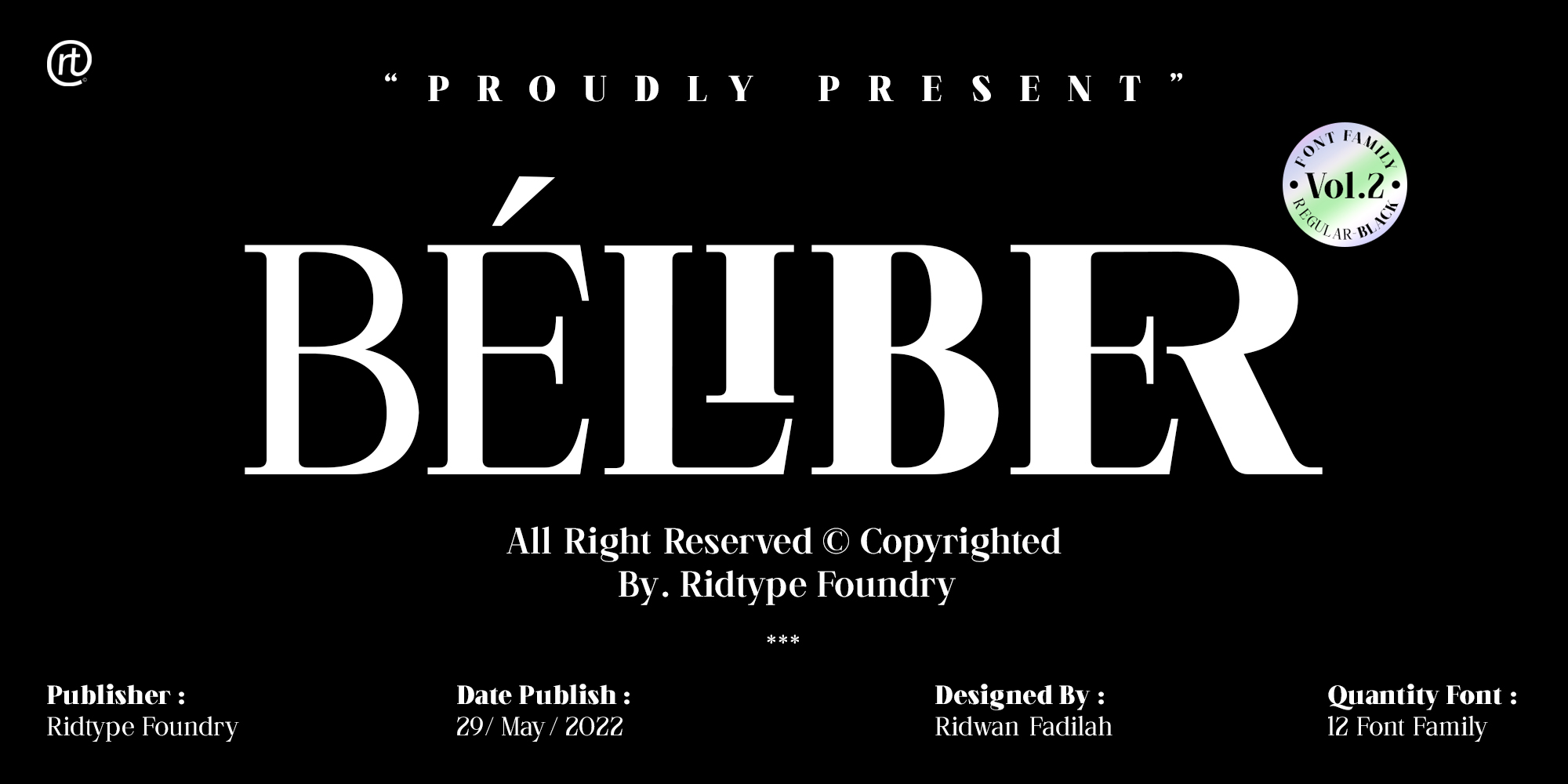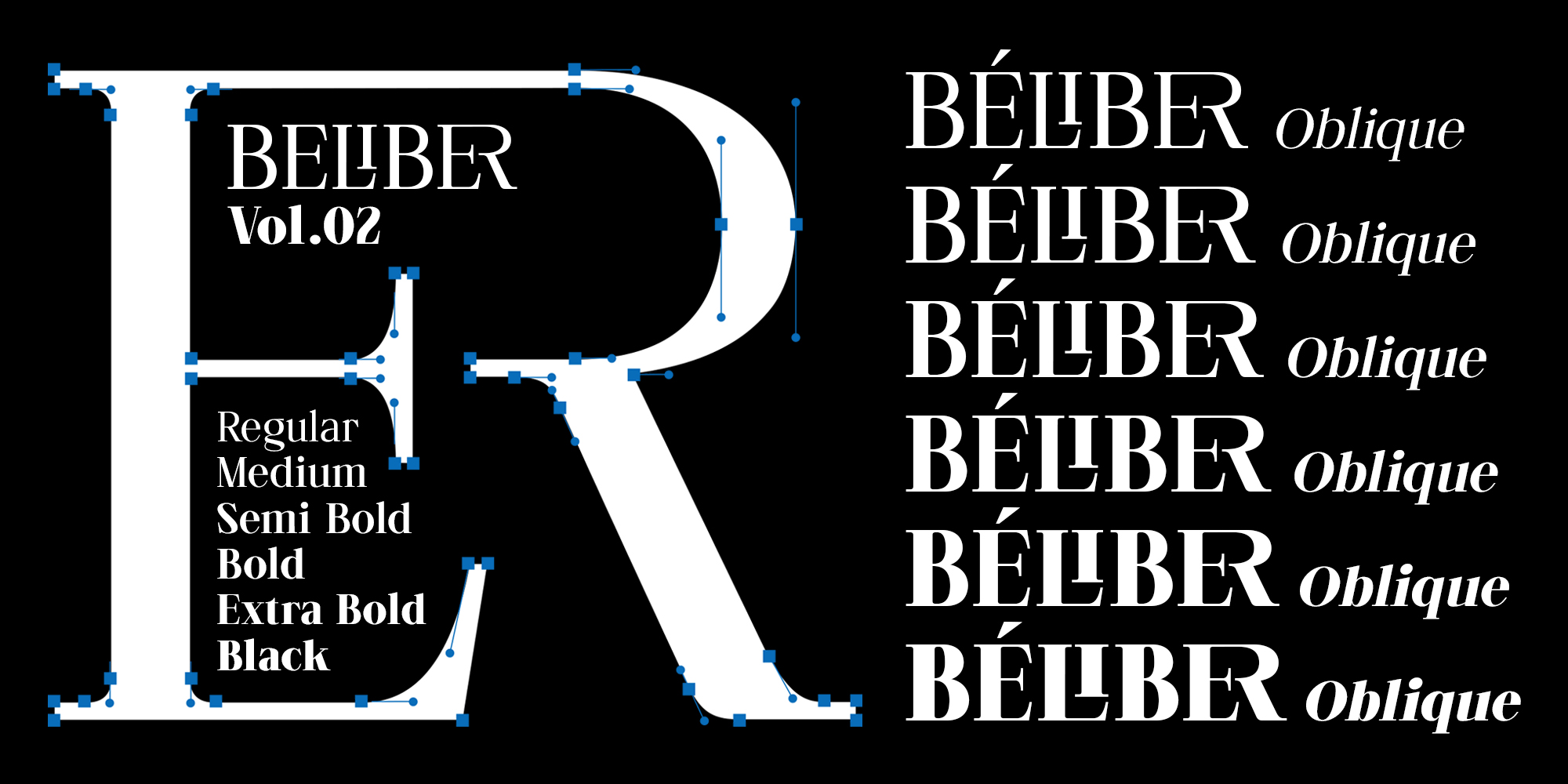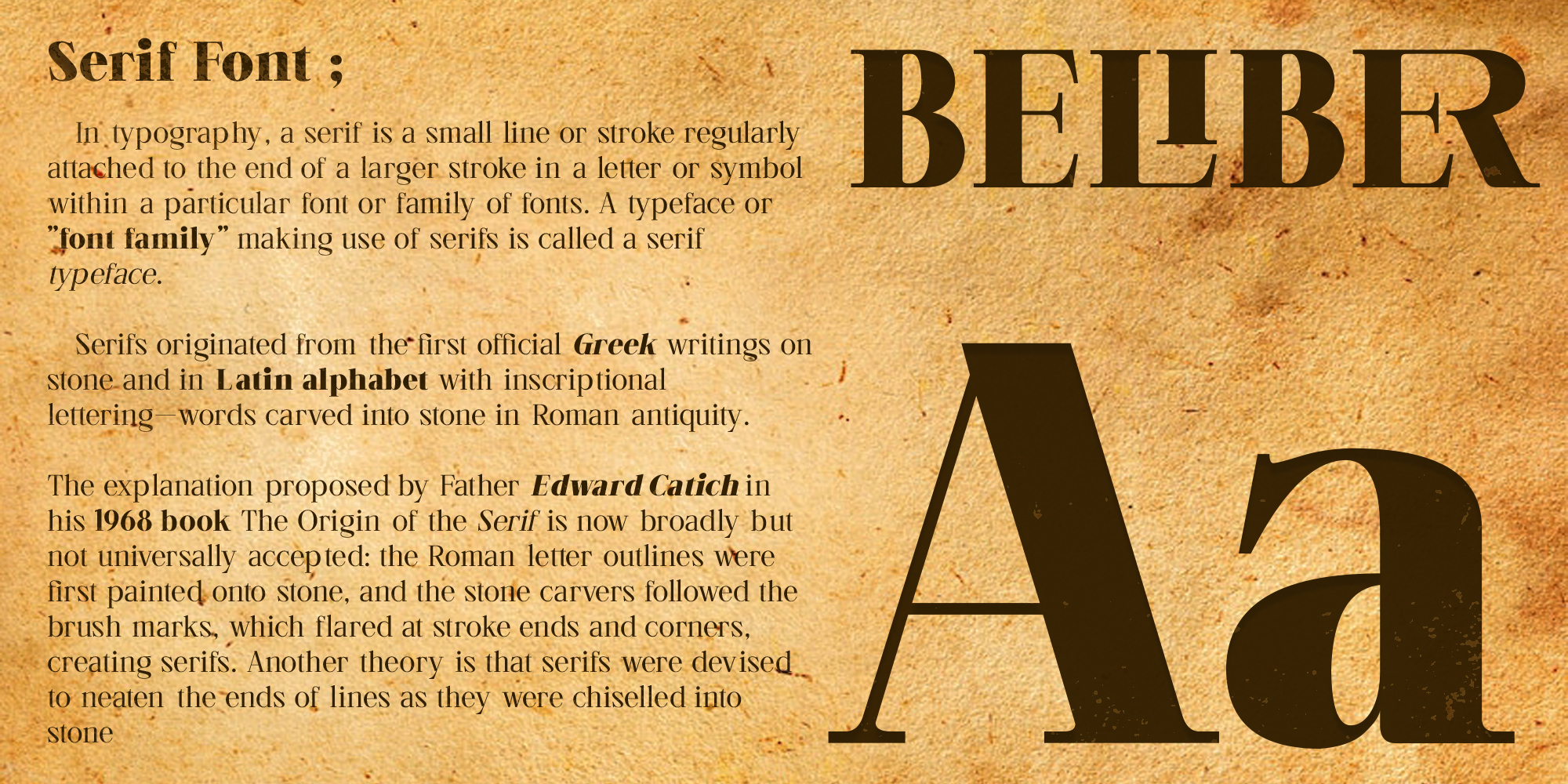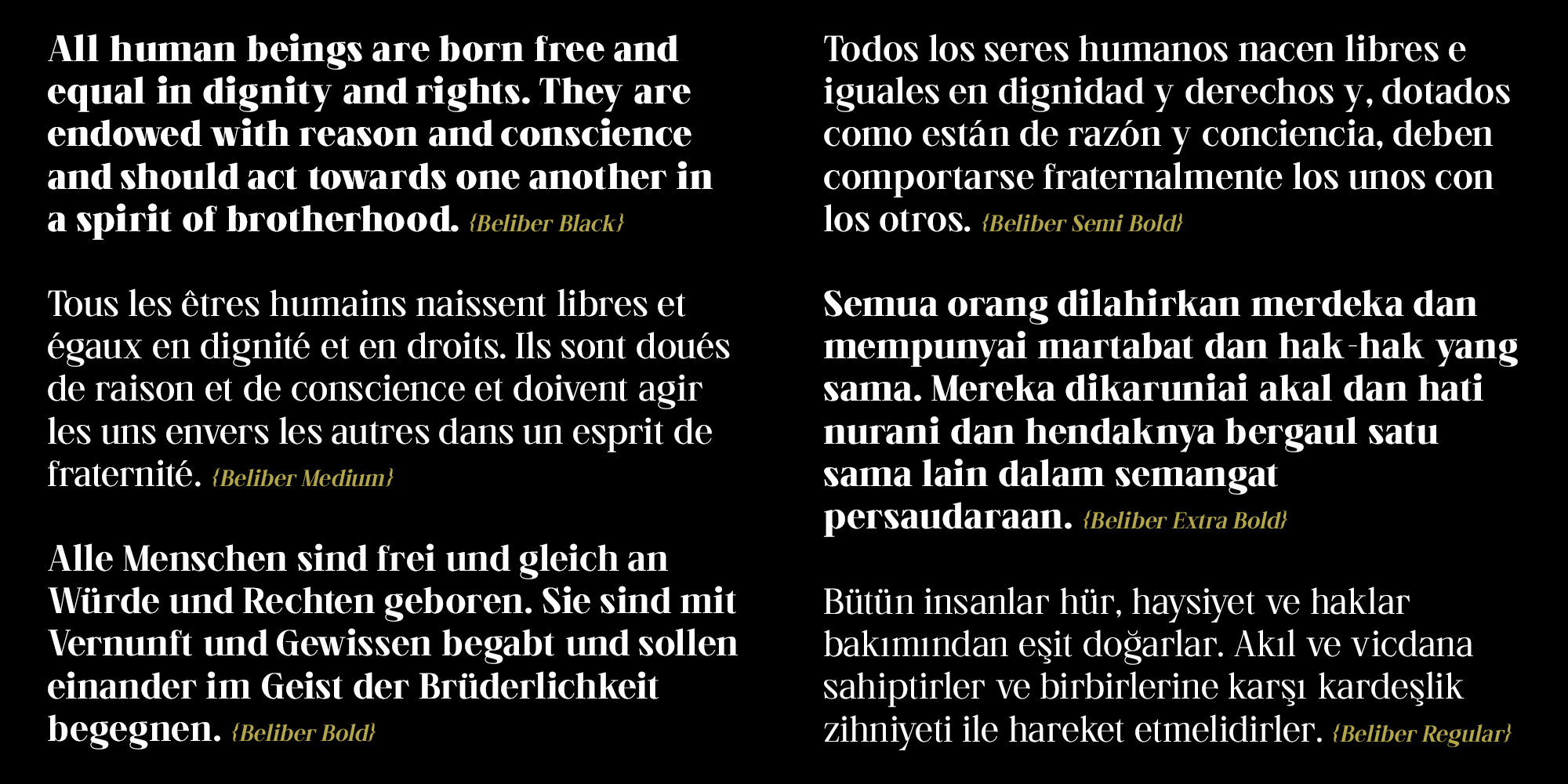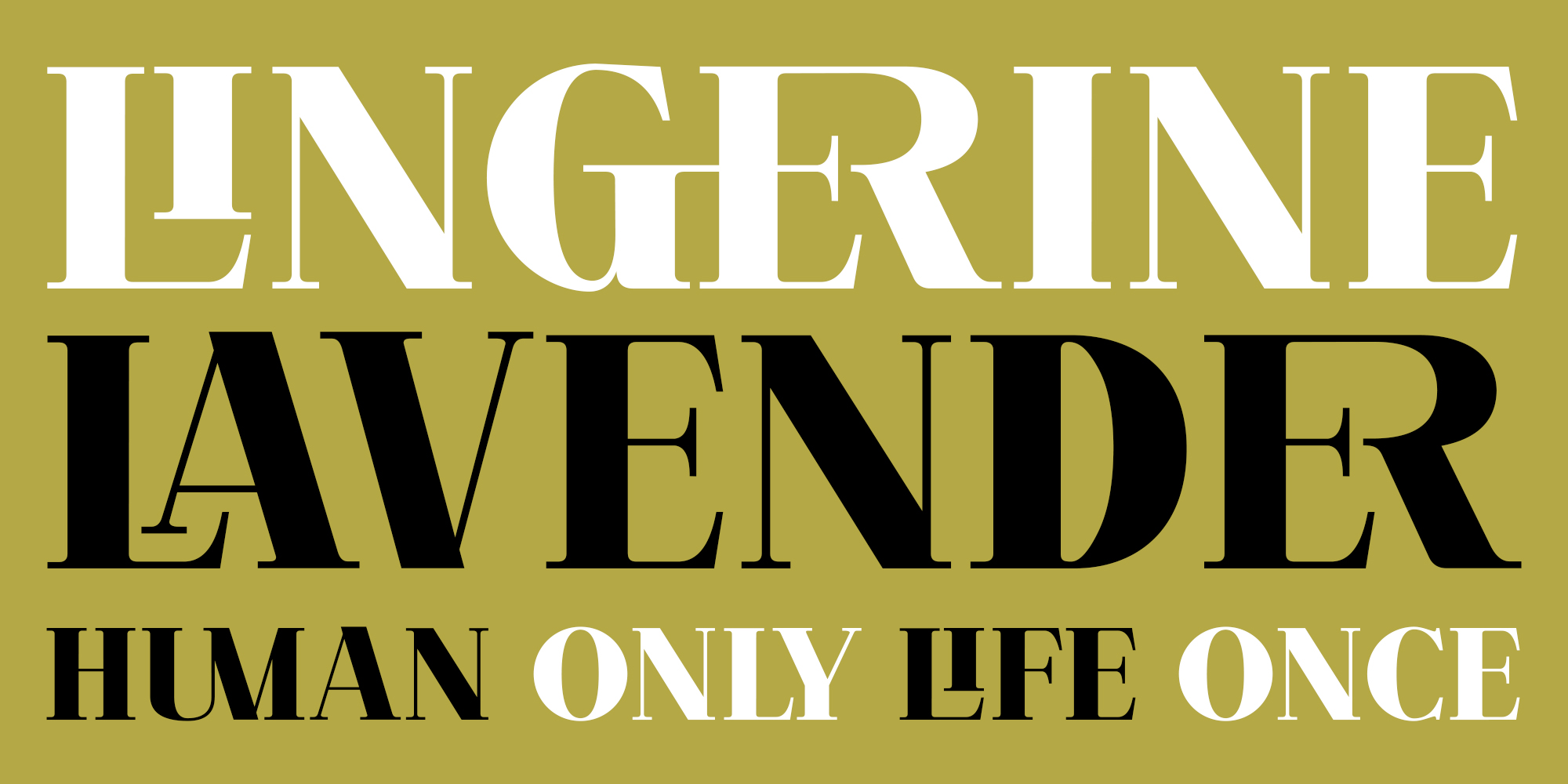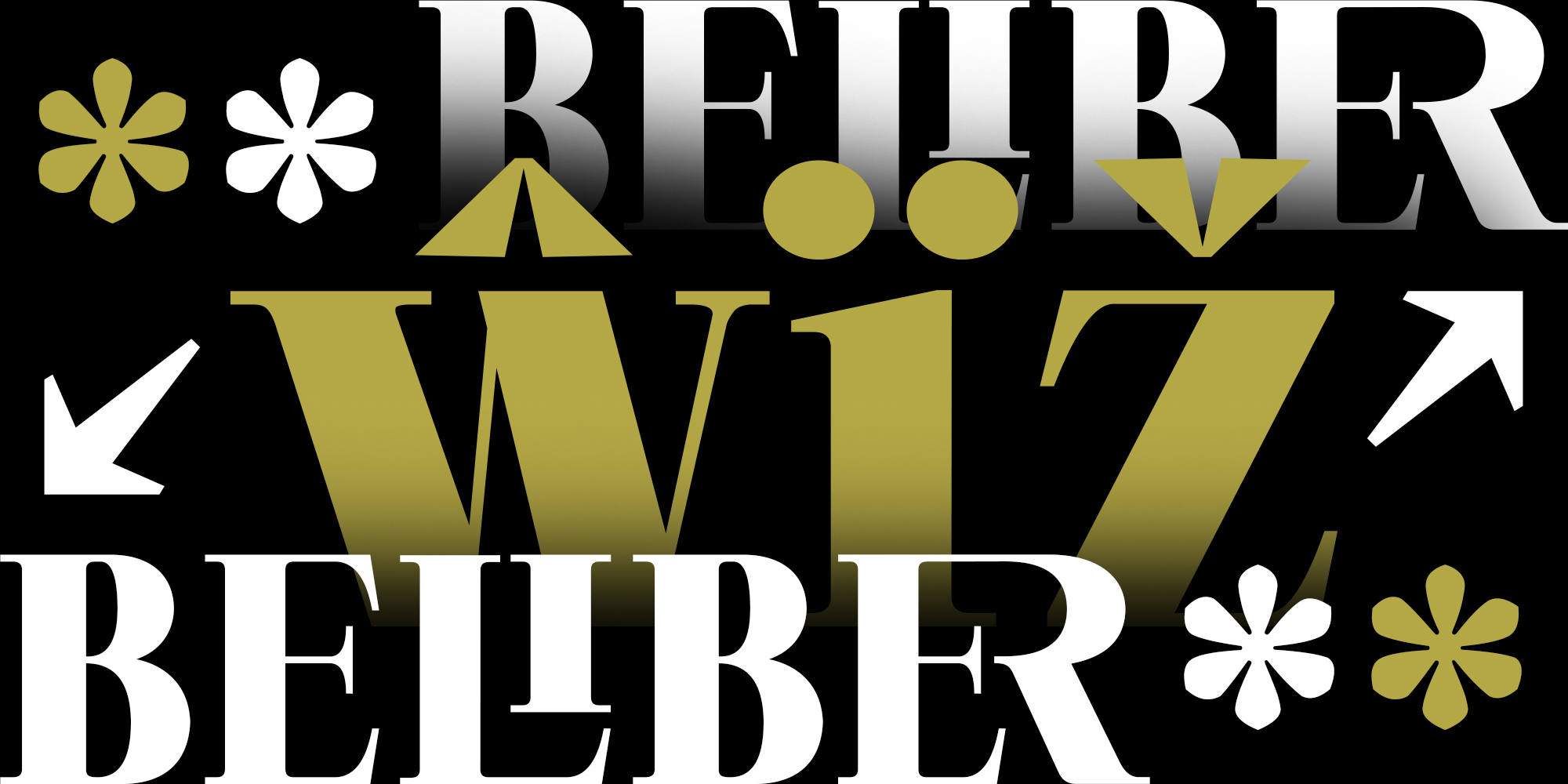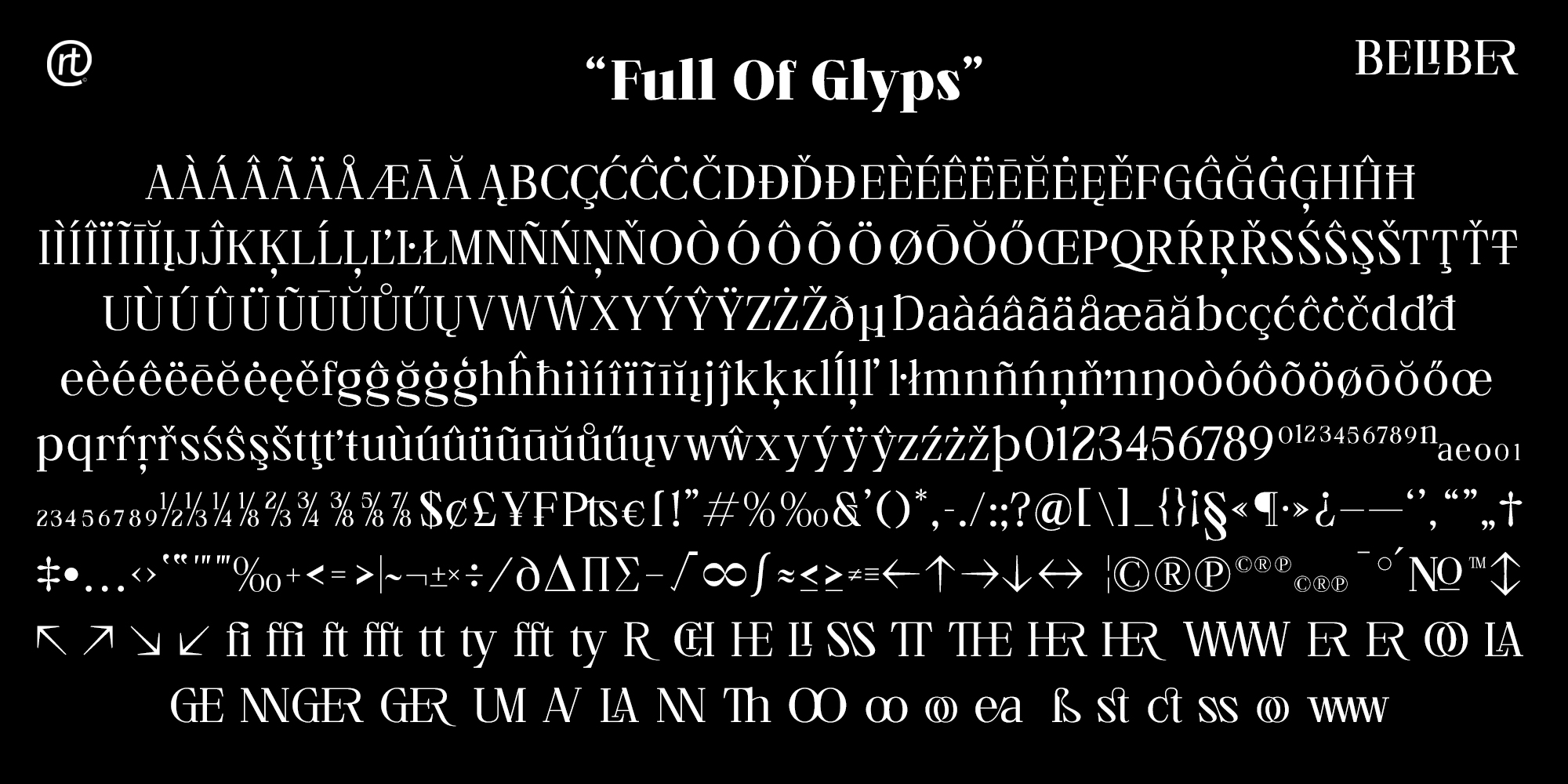
Beliber is a Serif Typeface, this font is specially designed to get the best feel and high quality to get a touch of high-end product
This font also has many alternate and ligatures, as well as other forms of supporting symbols that can be used.